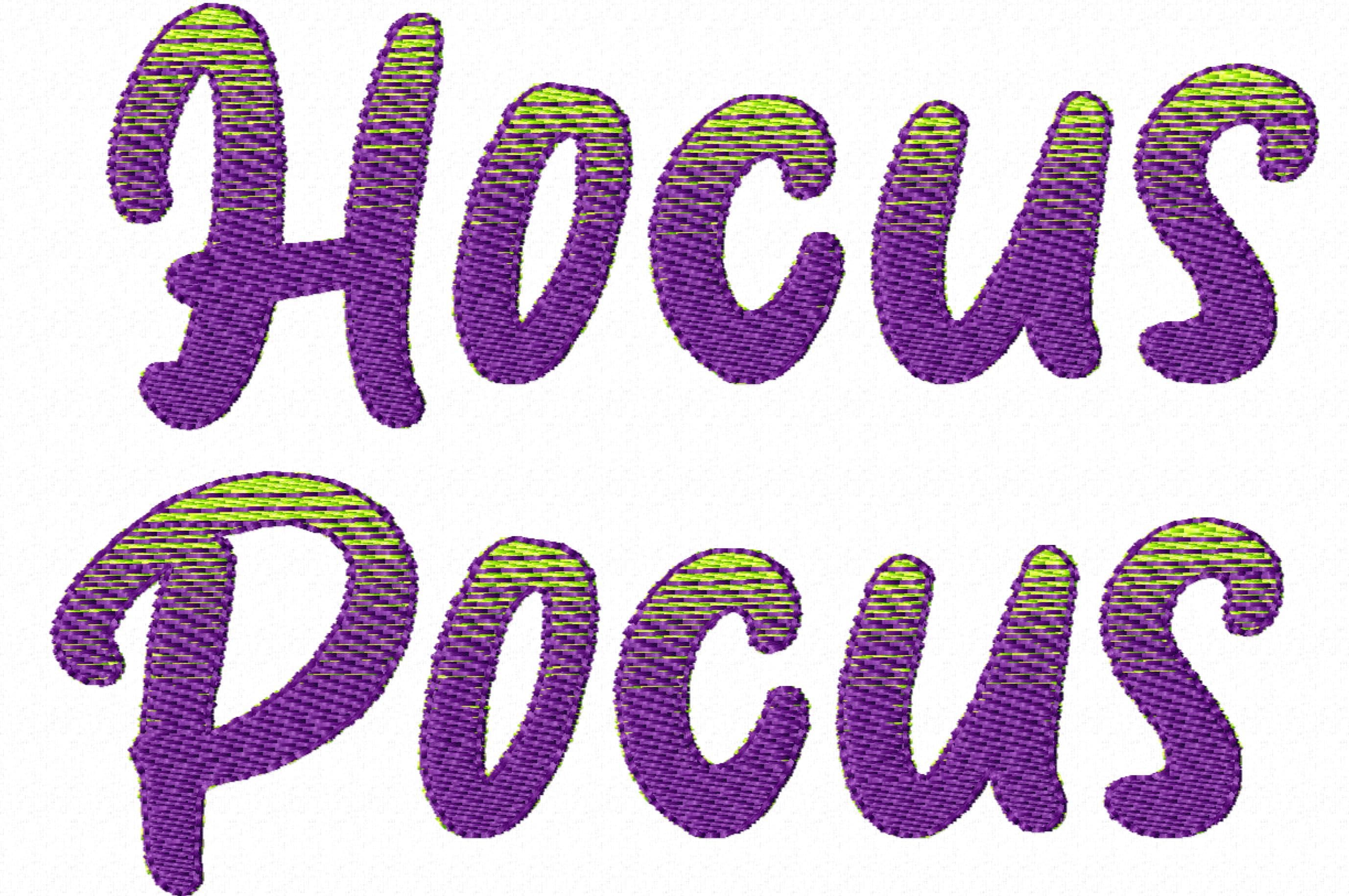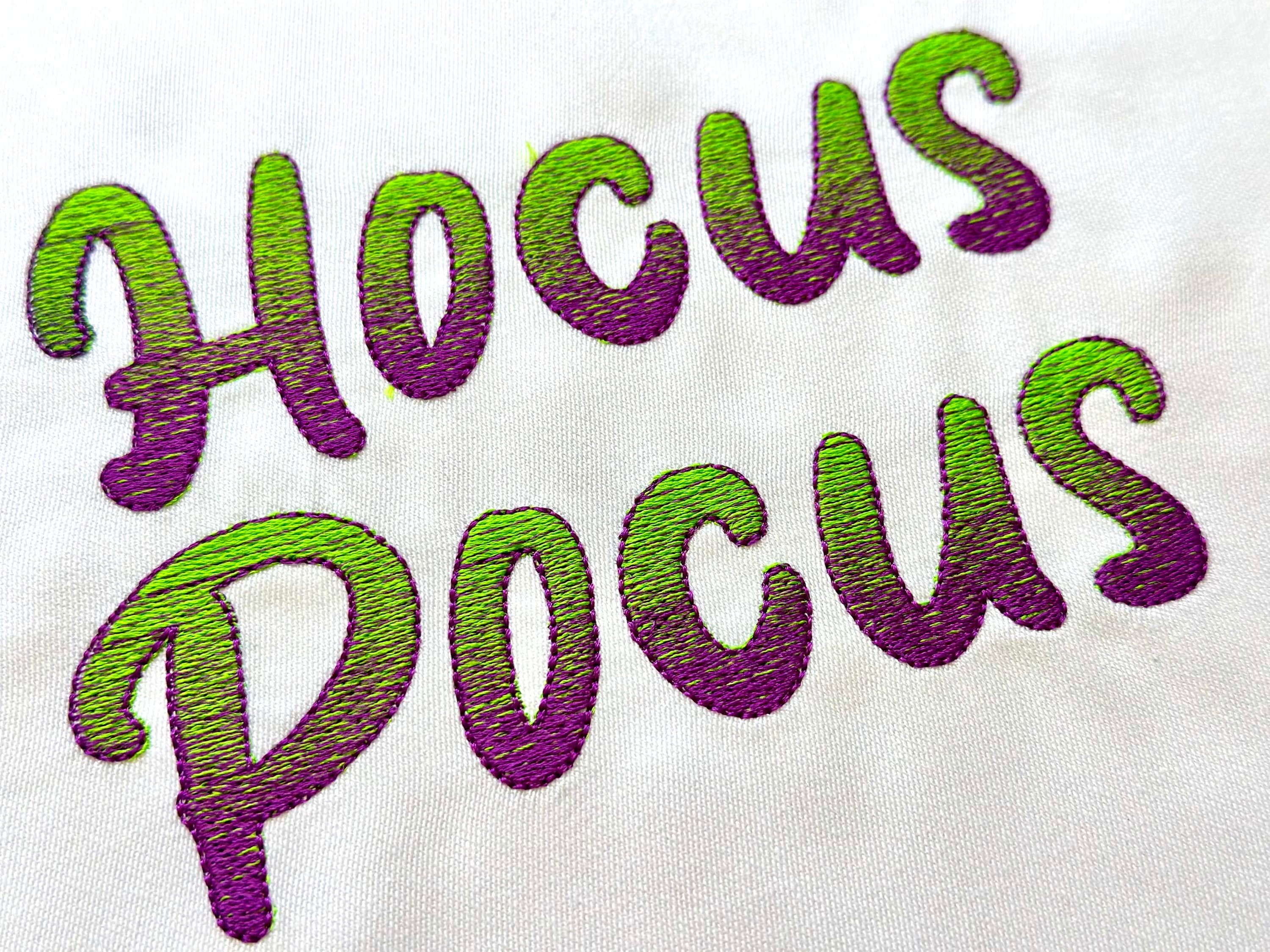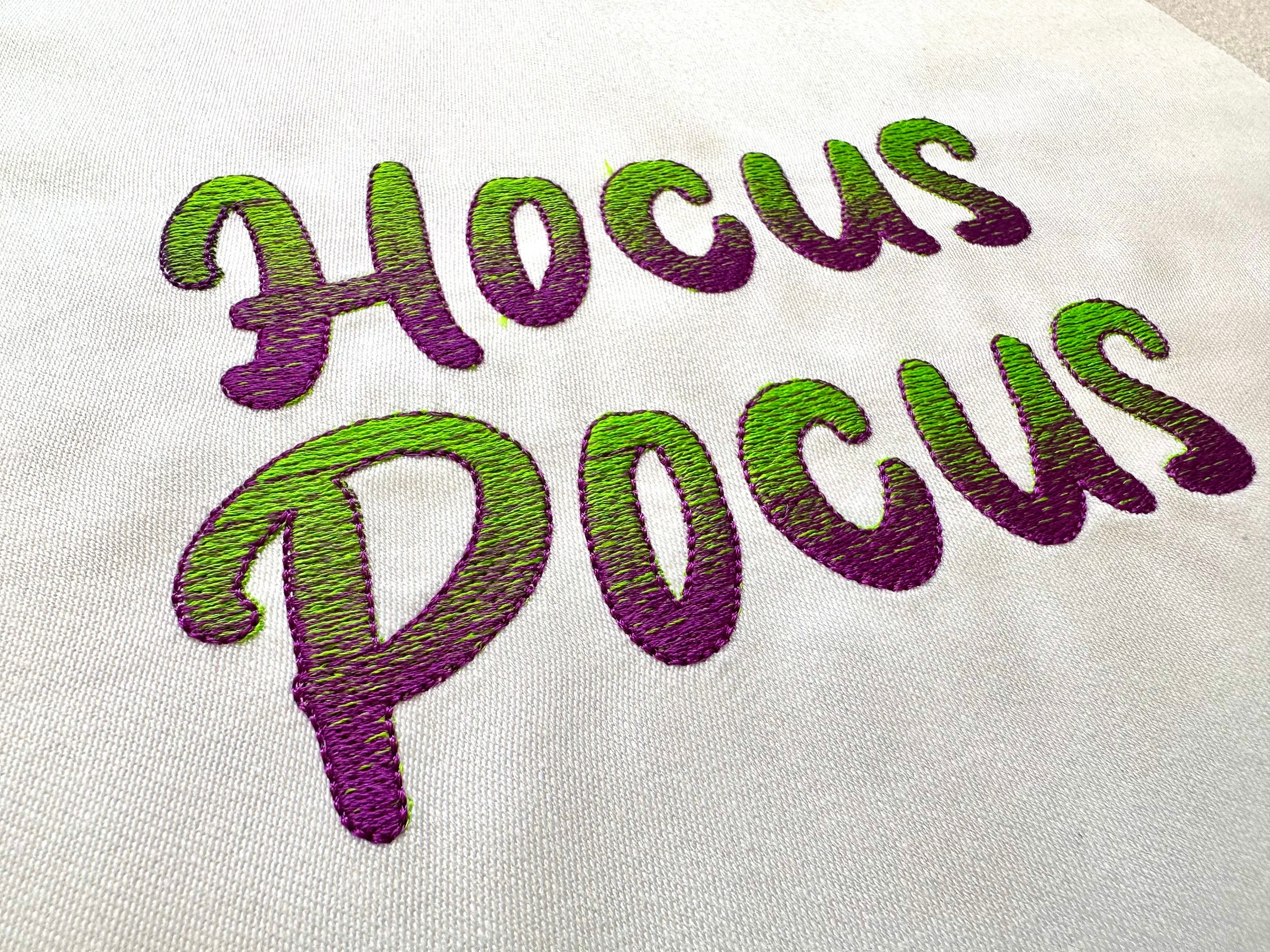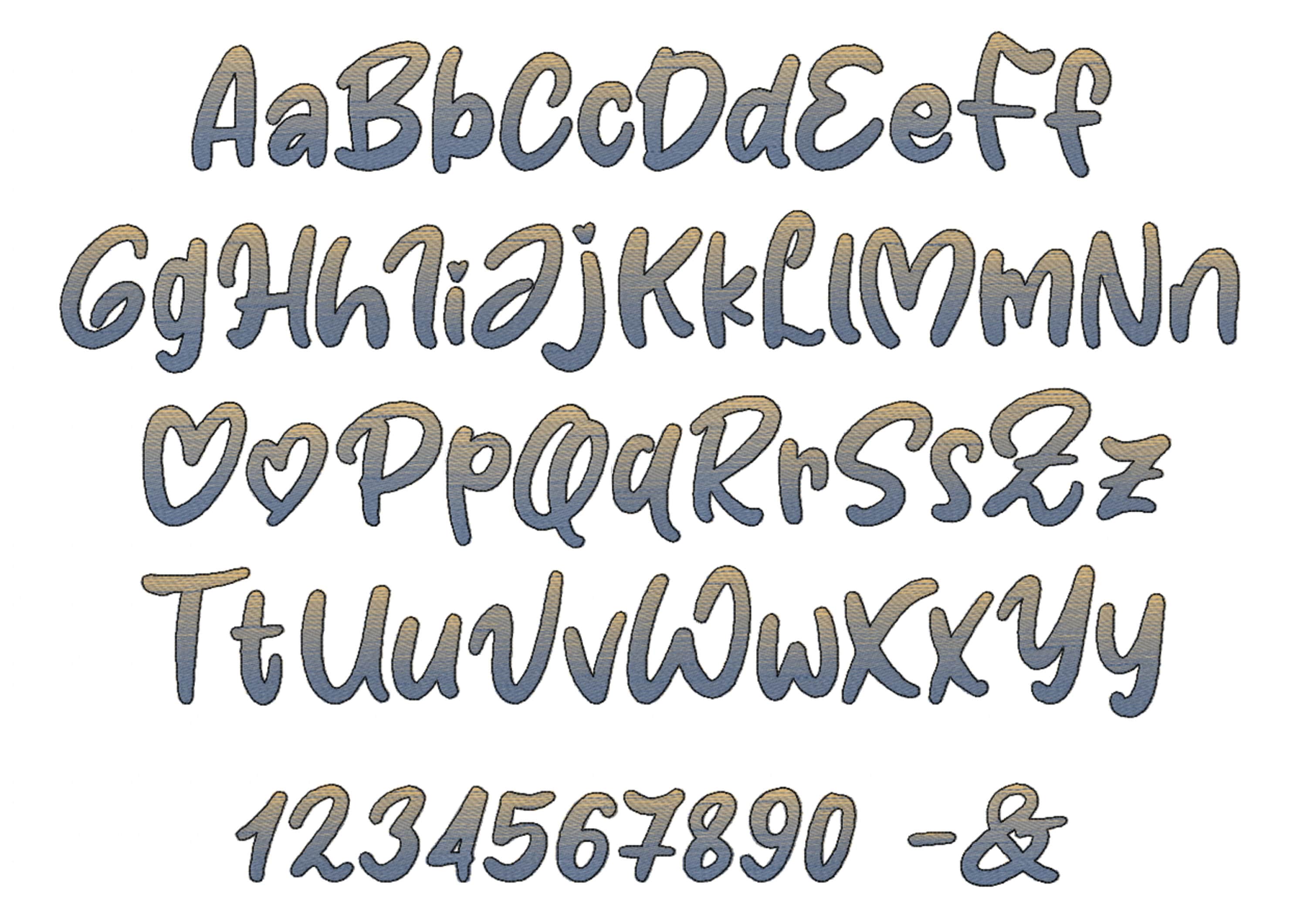
Gradient ombre two color embroidery Font alphabet iridescent machine embroidery designs in sizes 1.5, 2, 2.5, 3 inches, monogram BX included
No special thread needed! Amazing iridescent effect!
The letters are stitched using regular solid color embroidery threads (not variegated).
The pattern itself creates the iridescent effect - each letter is filled with two colors. First, stitch with the initial color, then the machine will stop so you can rethread with the second color. Finally, the third color is used for the outline.